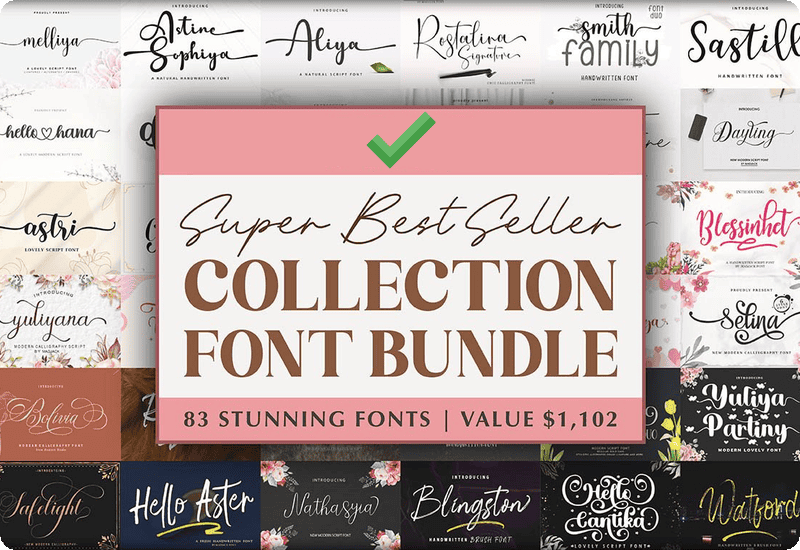
What is the Super Best Seller Collection Font Bundle?
Imagine you have a big box full of fancy, fun, and playful fonts—all for free! That’s what you’re getting with the Super Best Seller Collection Font Bundle. This bundle comes with 83 amazing fonts from MadJack Fonts, all carefully made to make your words look super cool. And here’s the best part: it’s usually worth $1,102, but you get it for free. Plus, it comes with a commercial license, which means you can use these fonts for personal projects and even for things you want to sell!
Why These Fonts are Awesome
Think of fonts like different costumes for your words. They can make your writing look sweet, silly, serious, or stylish, just like dressing up in a costume can make you look like a superhero, a princess, or a scientist.
A Sneak Peek at Some Fun Fonts in the Bundle
Let’s look at a few of the awesome fonts you’ll find in this bundle. Each one has its own personality, just like your friends do!
- Better Valentina Duo: This one is fancy and pretty, perfect for love notes or invitations.
- Lovely Darling: Cute and sweet, great for cards and birthday invitations.
- Holiday Washington: Gives off a festive holiday vibe!
- Sweety Holiday: Fun and cheerful, just right for party posters.
- Baby Yasmine: Soft and smooth, just like a lullaby.
And the list goes on! There are 83 fonts in total, so there’s a font for every mood you can think of—romantic, friendly, serious, funny, and even mysterious.